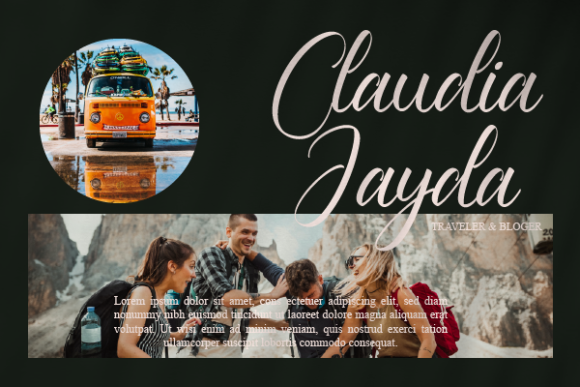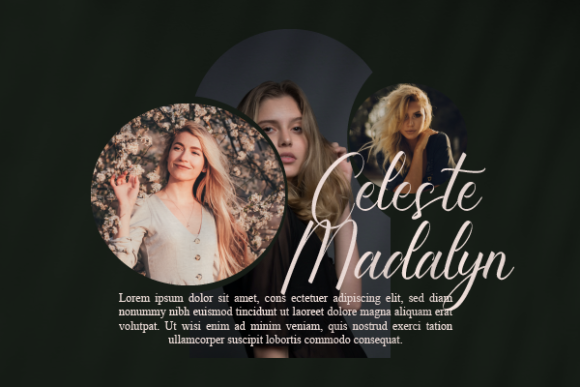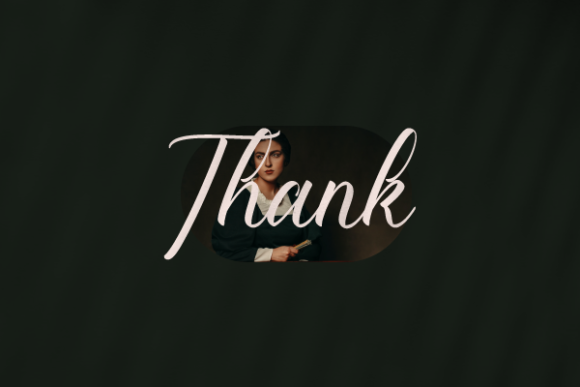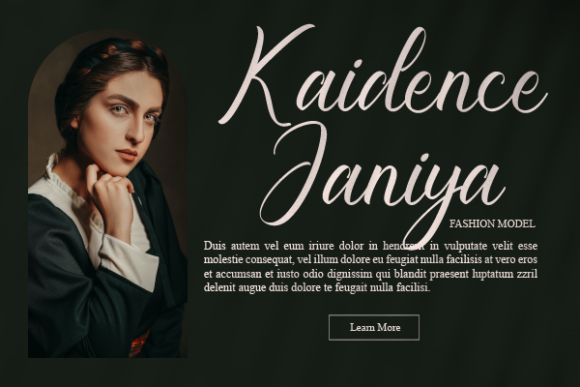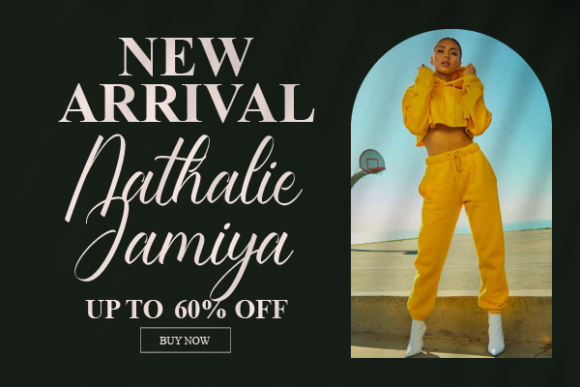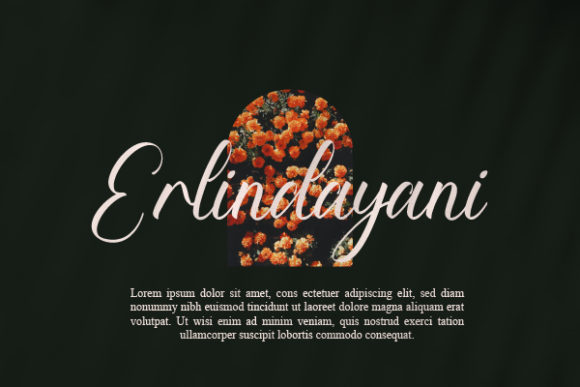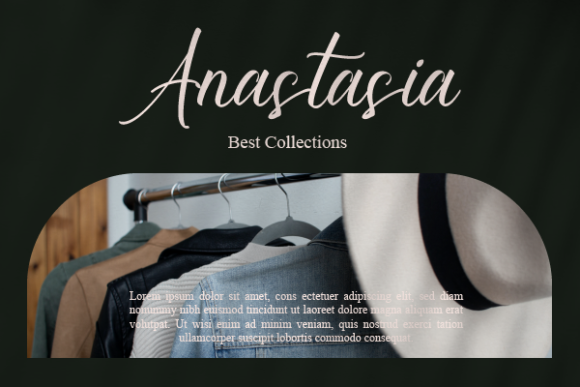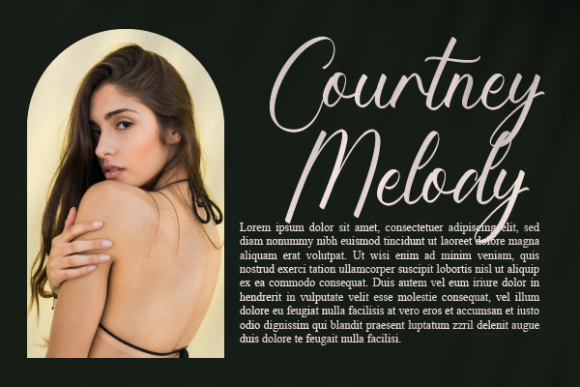
Giovany Chelsea Font
“Giovany Chelsea is not just a font; it’s a work of art. This slim and delicate handwritten font is a testament to the beauty of typography. With its elegant and curvy lines, Giovany Chelsea is designed to make your work stand out. It’s more than just a typeface; it’s a tool for creating stunning visuals that captivate and inspire.
One of the standout features of Giovany Chelsea is its versatility. It is perfect for any branding project, from logos to t-shirt printing, creative products, and more. Whether you’re a professional designer working on a major branding project or a hobbyist creating personalized items, Giovany Chelsea is the font for you.
But Giovany Chelsea is not just versatile; it’s also fashionable. With its modern and stylish design, Giovany Chelsea is a font that stays ahead of the trends. It’s a font that makes a statement, a font that stands out. Whether you’re creating a logo for a cutting-edge fashion brand or designing a poster for a trendy event, Giovany Chelsea is the font that will help you make a statement.
Moreover, Giovany Chelsea is designed to look extraordinary in a variety of contexts. Whether it’s on a business card, a website, a billboard, or a t-shirt, Giovany Chelsea shines. Its unique style and character make it a versatile and adaptable font that can elevate any design.
But the beauty of Giovany Chelsea goes beyond its design. It’s also a font that’s easy to use. With its clear and legible characters, Giovany Chelsea is a font that’s easy to read and understand. This makes it a great choice for designs that need to communicate clearly and effectively.
In conclusion, Giovany Chelsea is a superb handwritten font that’s perfect for any project. With its unique style and versatility, it’s a font that can make any design stand out. Whether you’re a professional designer or a hobbyist, Giovany Chelsea is a font that’s worth checking out.”